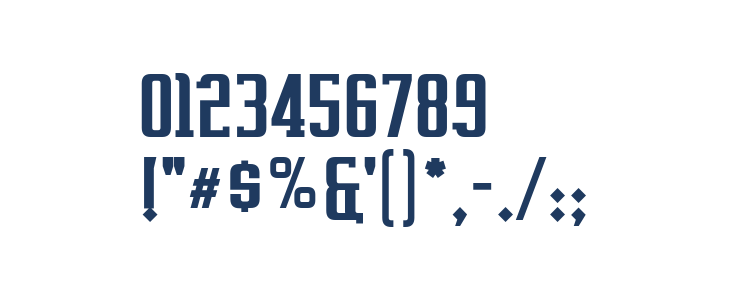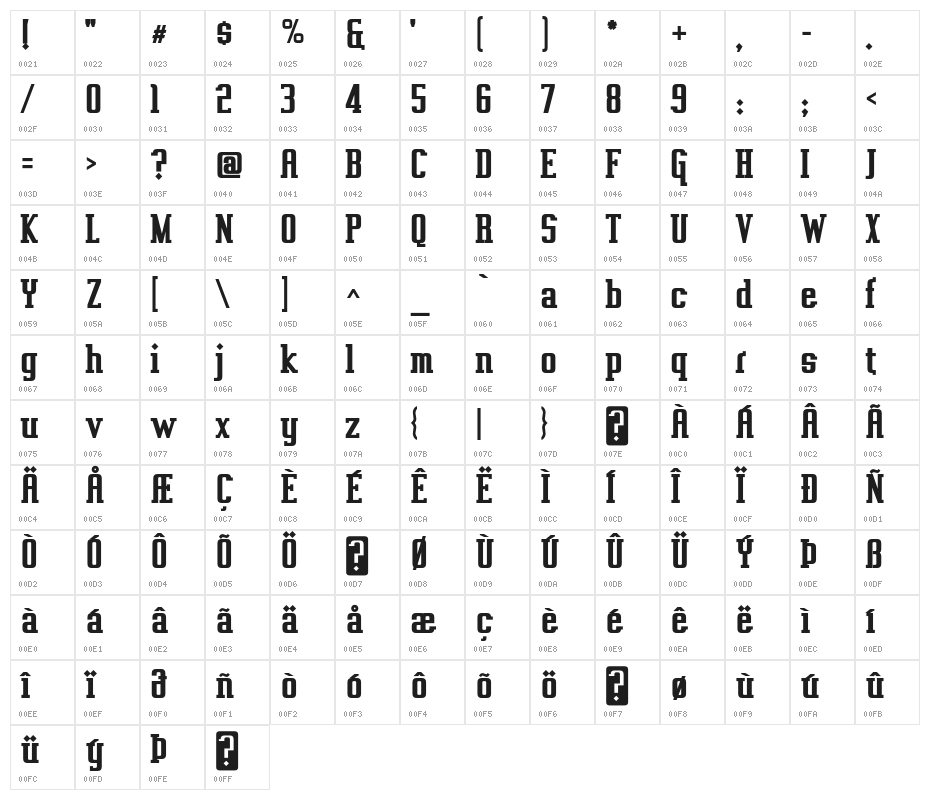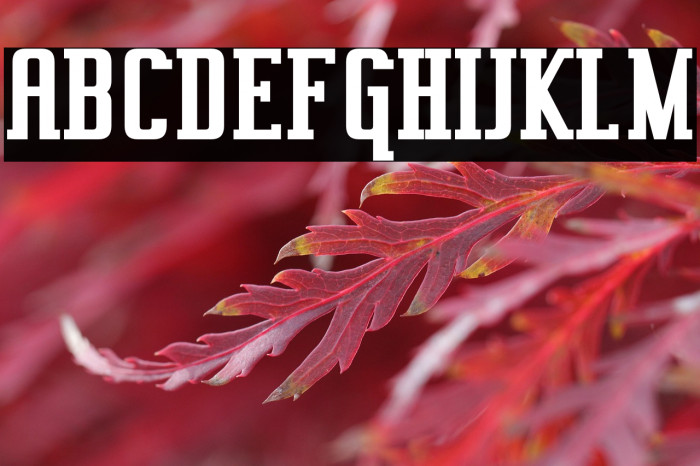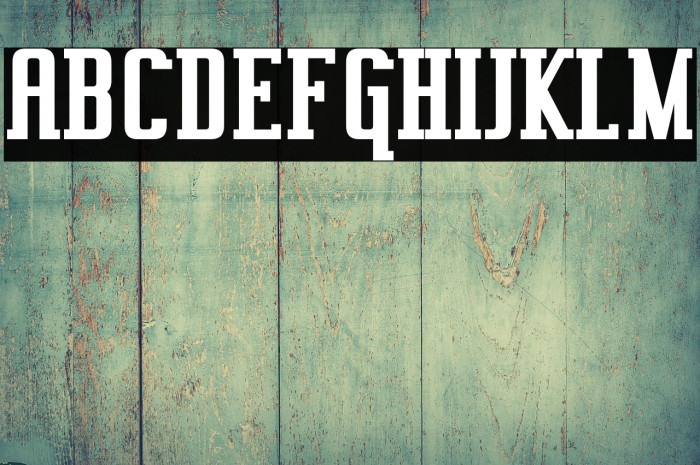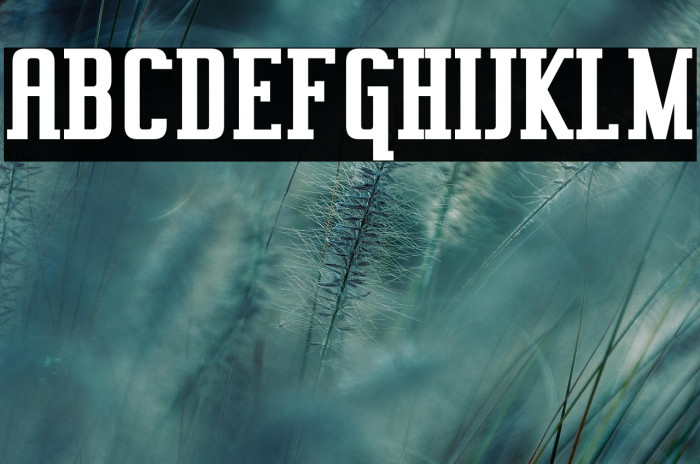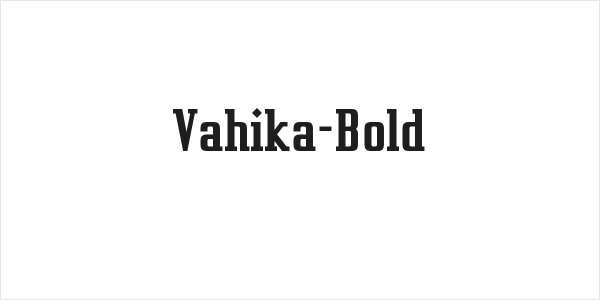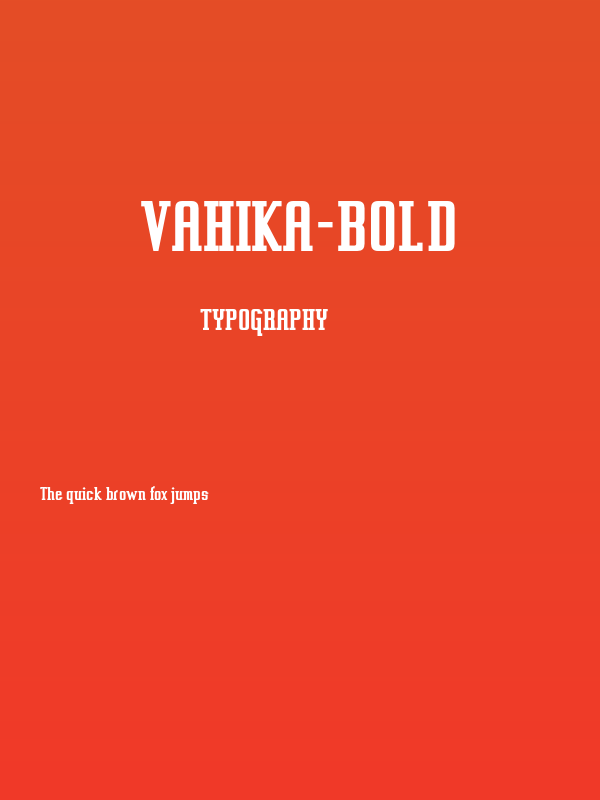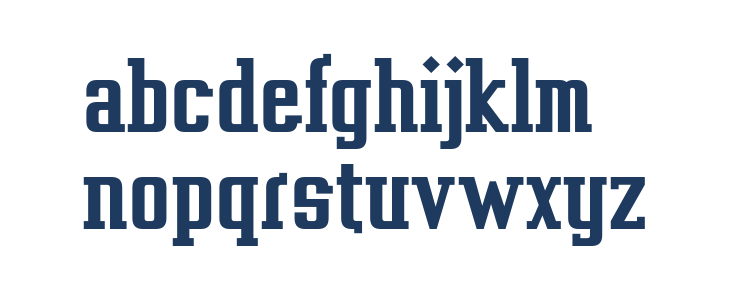
Vahika-Bold Font
Vahika-Bold Description
This font features a bold and striking design with a strong presence. The characters are crafted with thick strokes and prominent serifs, giving it a robust and authoritative appearance. The uppercase letters are tall and commanding, while the lowercase letters maintain a consistent weight and style. The numerals are equally bold, ensuring readability and impact. Special characters are designed to match the overall boldness, making them suitable for attention-grabbing text. The font's style is reminiscent of vintage and classic typefaces, yet it retains a modern edge that makes it versatile for various design applications.
| Overall Style | Vintage, Modern |
| Proposed Projects | Ideal for headlines, posters, branding, and any design requiring a bold, impactful typeface. |